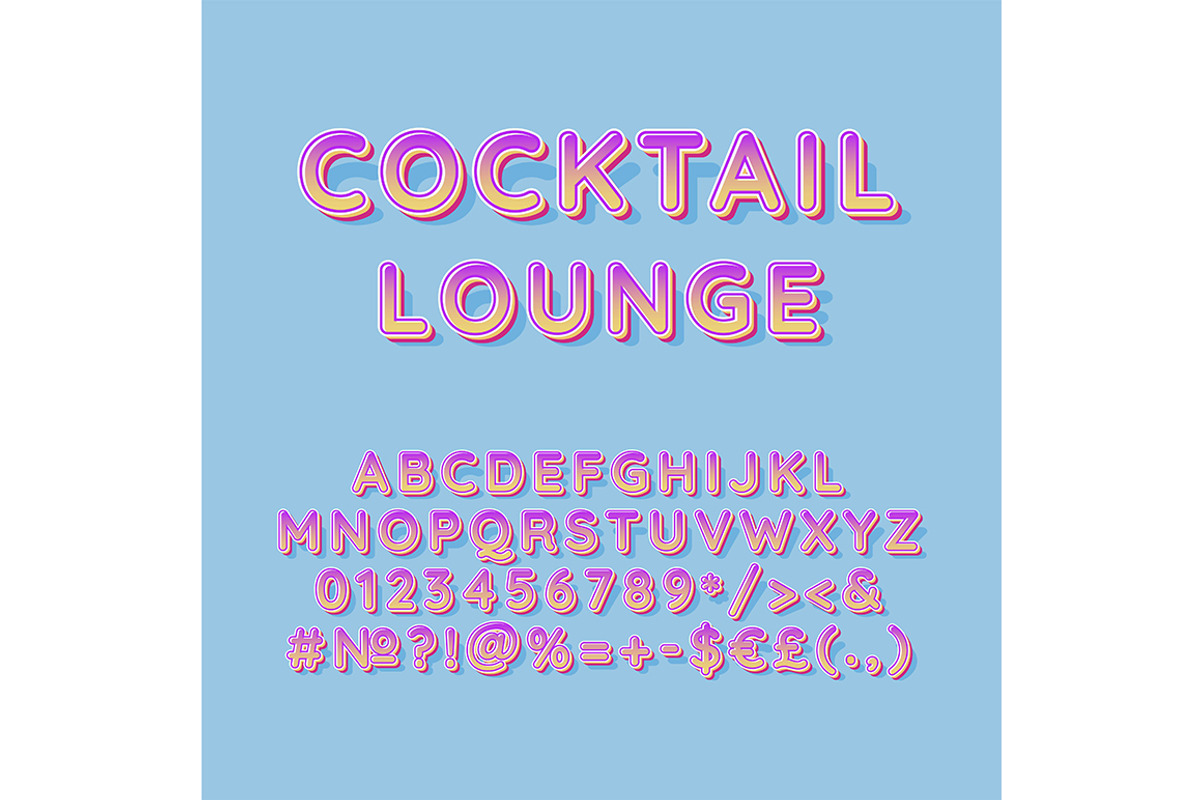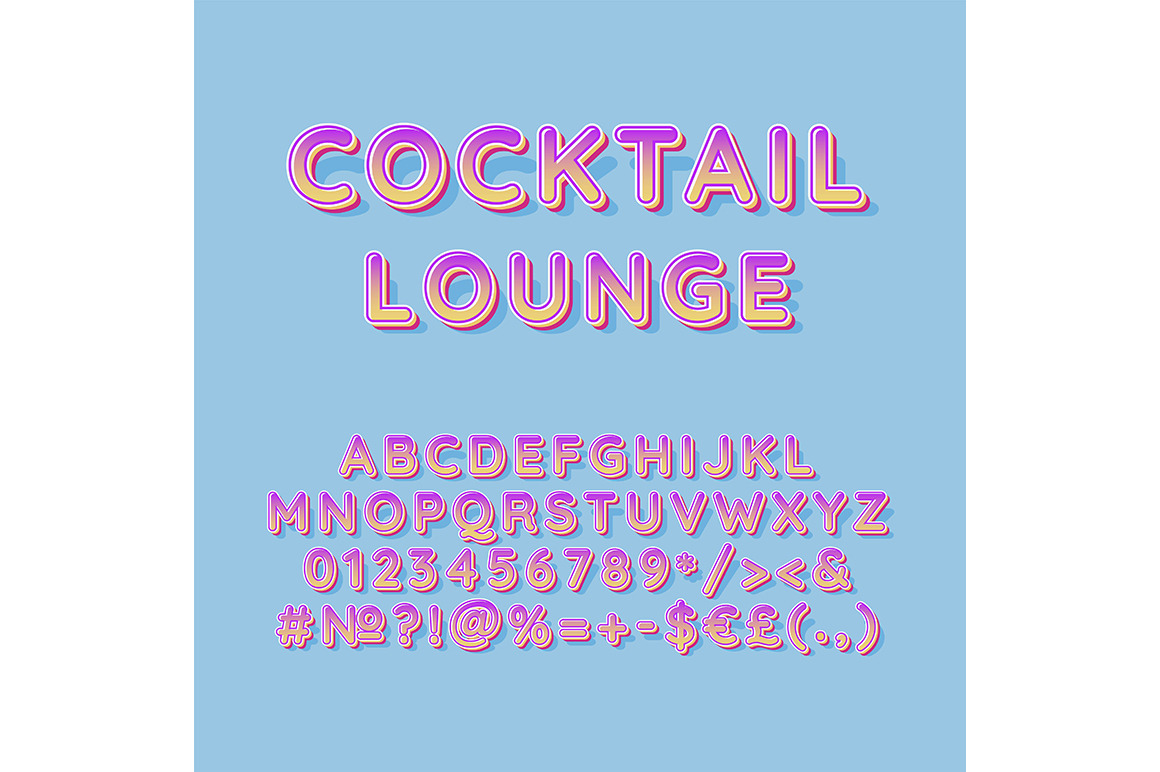
Cocktail lounge header vintage font
Cocktail lounge header vintage 3d vector alphabet set. Retro bold font, typeface. Pop art stylized lettering. Old school style letters, numbers, symbols pack. 90s, 80s creative typeset design template . ZIP file contains: EPS, JPG, PNG, SVG, AI. If you are interested in custom design or want to make some adjustments to purchase the product, don't hesitate to contact us! bsd@bsdartfactory.com